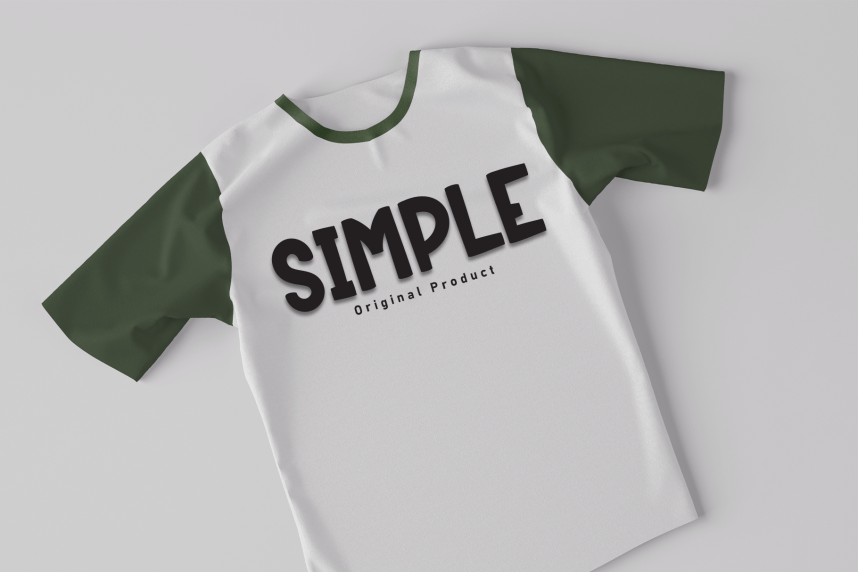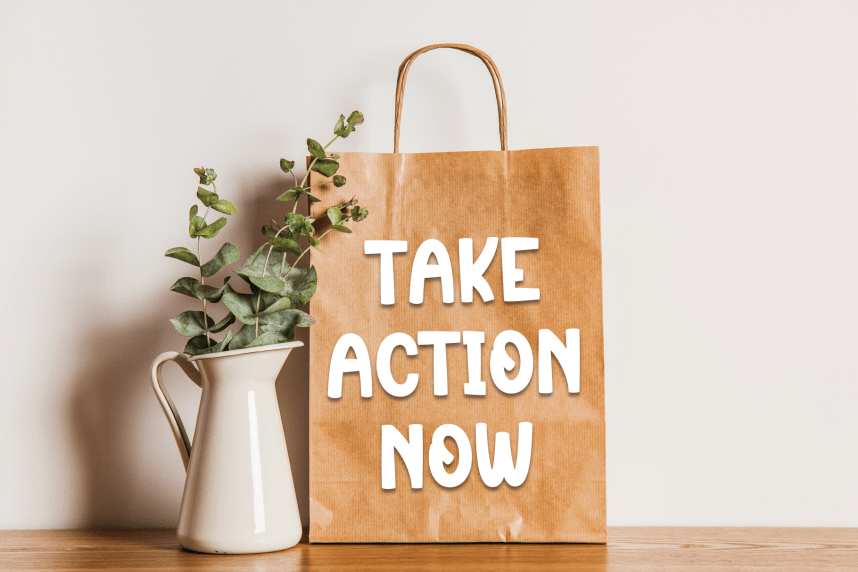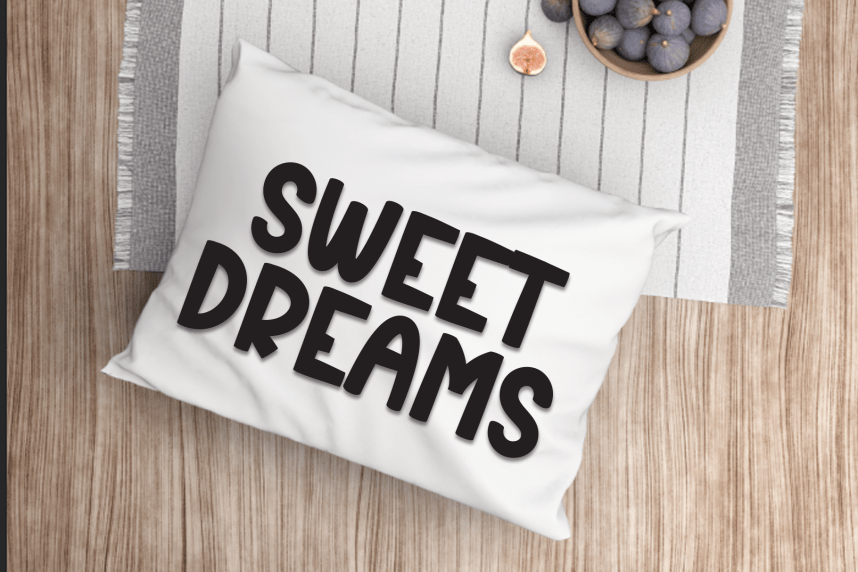
Sparkie Christmas – Creative Style Font
Sparkie Christmas – Creative Style Font, special creative products for you, our products will give you an extraordinary experience.the latest style letters are perfect for wall displays, wedding invitations, social media post logos, advertisements, product packaging, product designs, labels, photography, watermarks, invitations, stationery, and any project that requires taste handwriting.